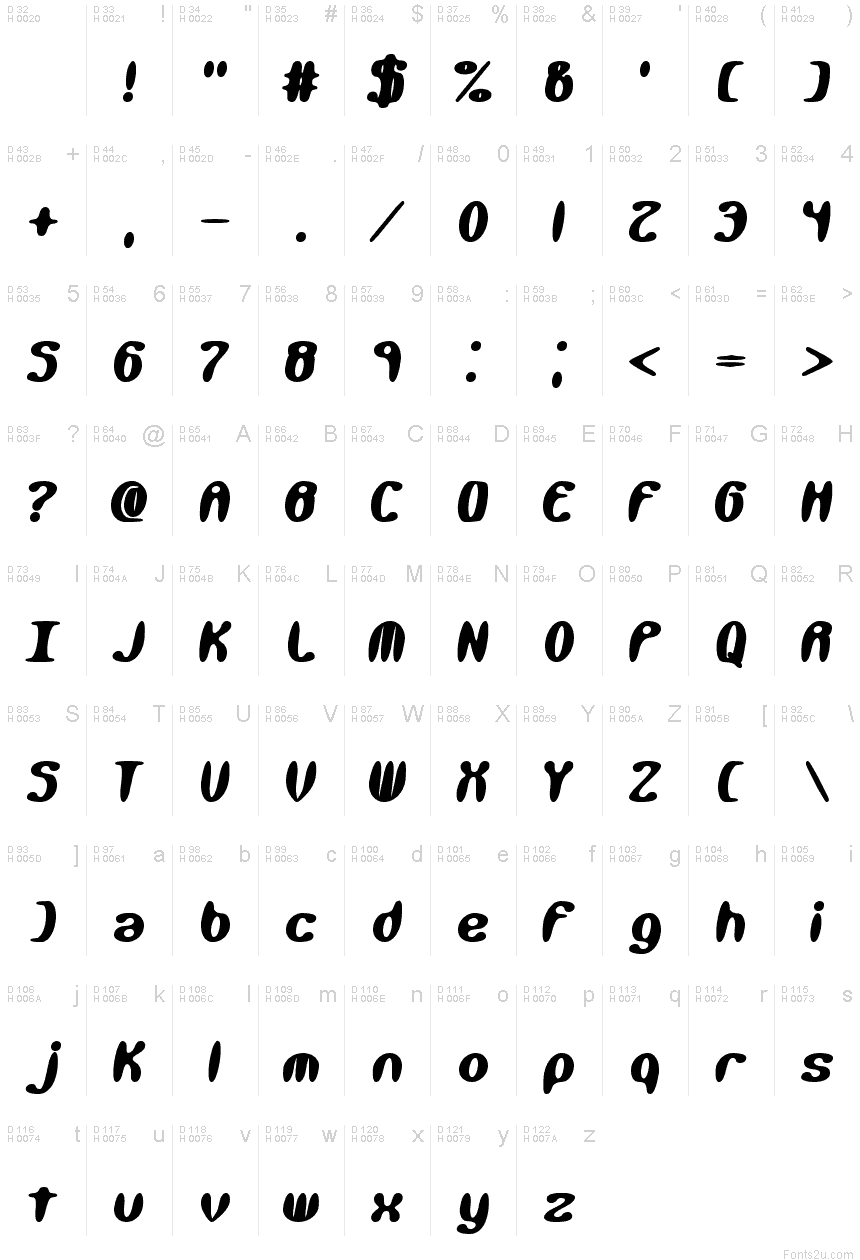
Kaliber Xtreme (BRK)
Kaliber Xtreme font by Ænigma Fonts is a free comic display typeface with chunky, inky curves that feel almost hand-squeezed onto the page. Its letters swell and taper like blobs of wet paint, giving words a bouncy rhythm and a fun, slightly wild attitude. The tight, rounded shapes create a strong, unified texture, so even short headlines hit with a big, friendly splash of personality.
Using Kaliber Xtreme, you can crank up the energy on kids’ posters, playful logos, game titles, stickers, YouTube thumbnails, and party invitations. This free font shines when set large, where its rubbery edges and thick strokes really pop; keep body text in a simple sans like Arial or Montserrat so the blobby forms stay readable and loud where they matter most.